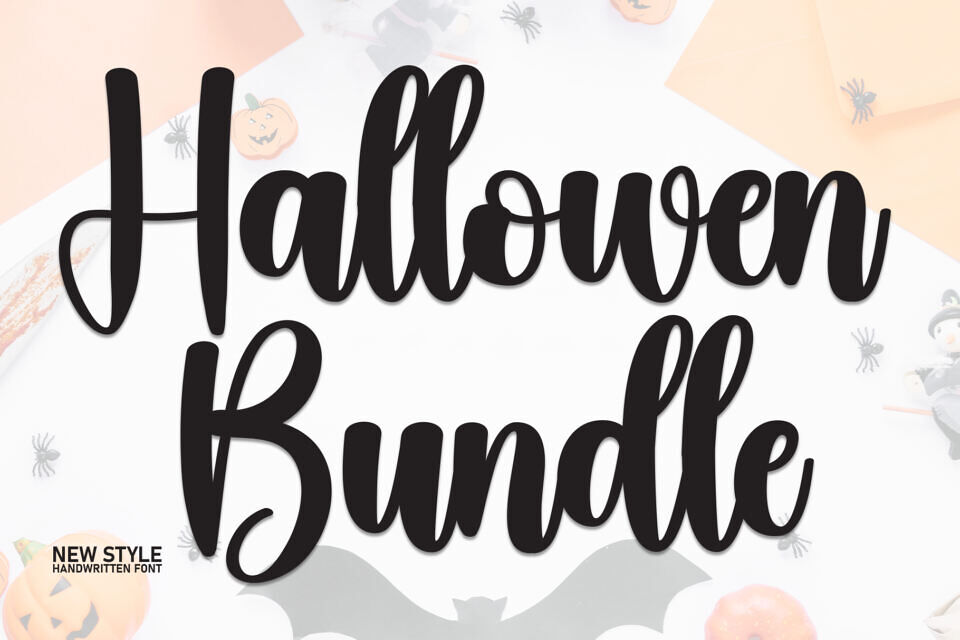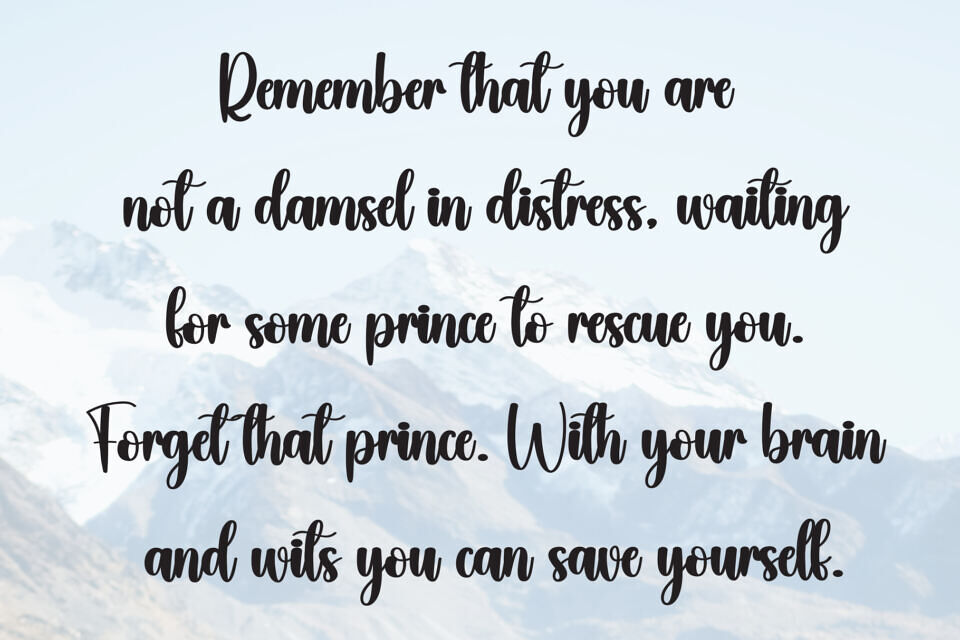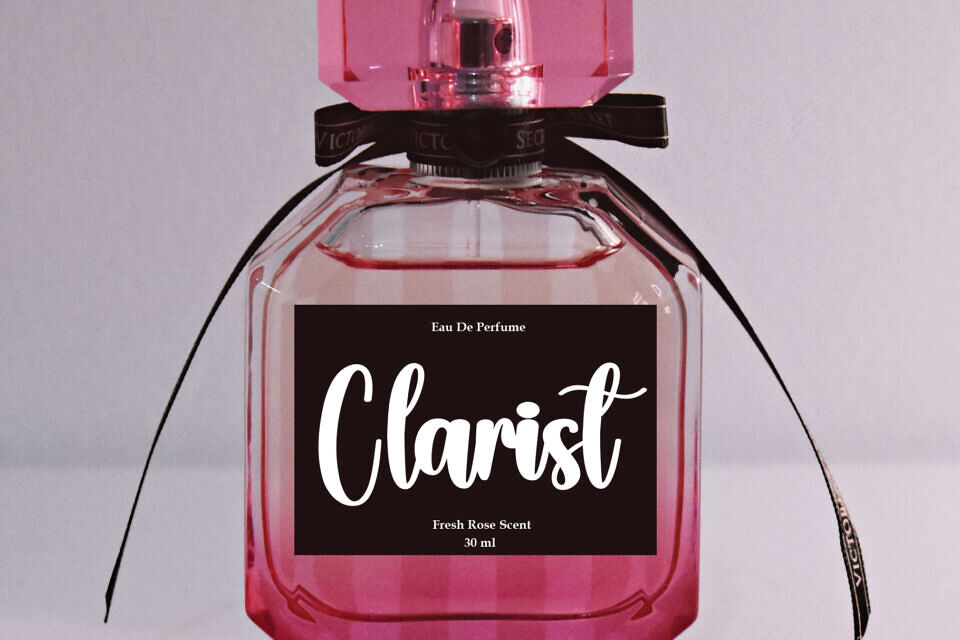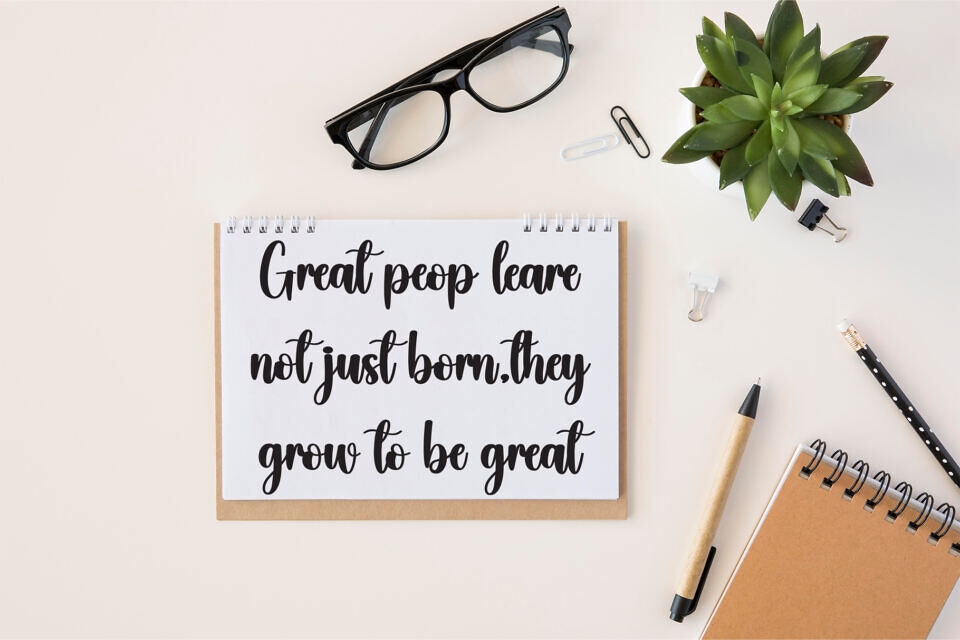
The Halloween Bundle Font is a playful and whimsical script font that brings a touch of spookiness to any design. Featuring flowing, cursive lettering, it creates a fun, festive vibe perfect for Halloween-themed projects.
Whether you’re designing invitations, posters, or social media posts, this font adds character and personality with its stylish curves and sharp edges. The Halloween Bundle Font is versatile, capturing both the spooky and celebratory elements of the season.